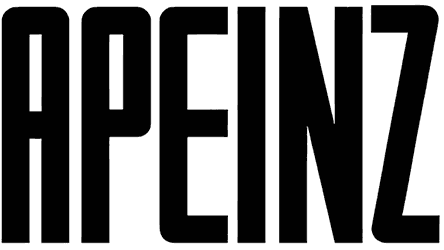
Walnut Cream Font
Guess where you can make good use of Walnut Cream? The list is endless, but a few examples won’t hurt. After all, we’re talking about a font so bold it can be easily read from a significant distance, so you probably don’t want to miss something so noticeable.
After all, that’s exactly the kind of impression you’ll feel the need for when you’re working on construction company logos, college sports team uniforms, and banners of any type, especially for something modern.